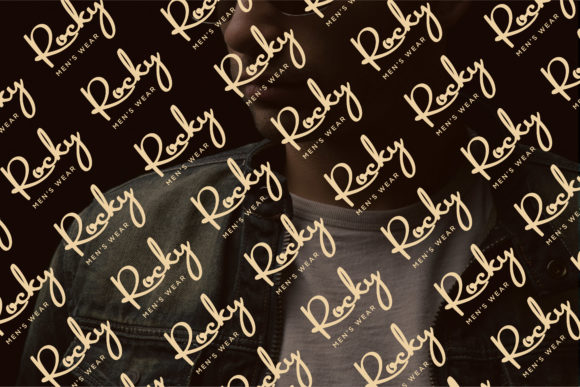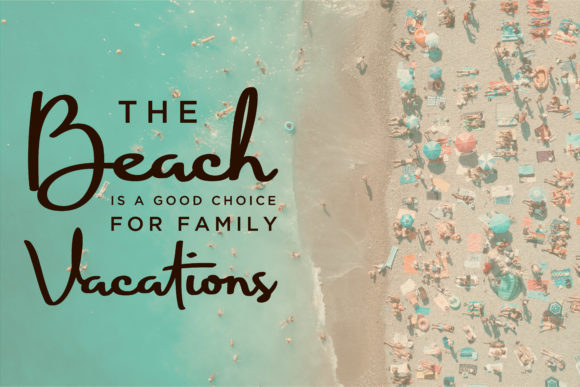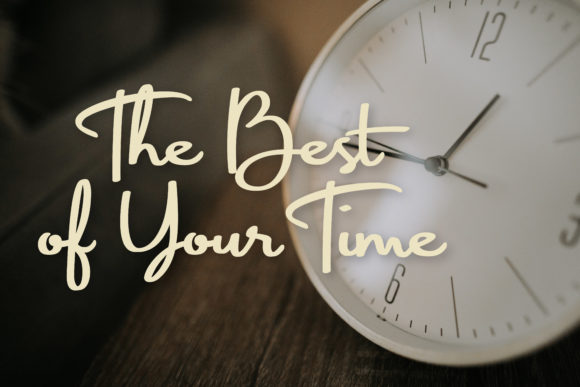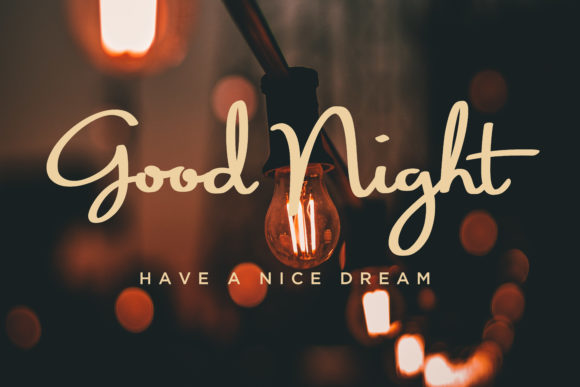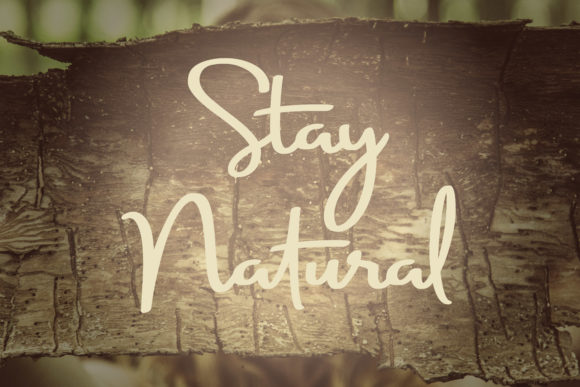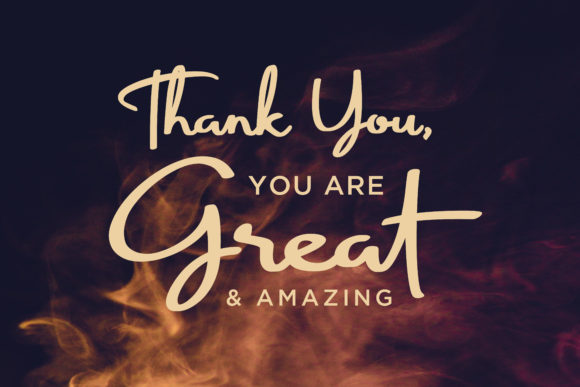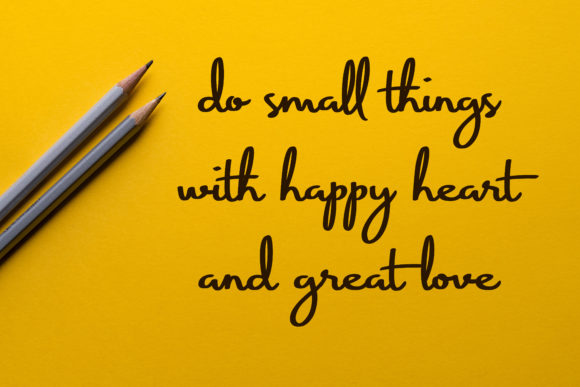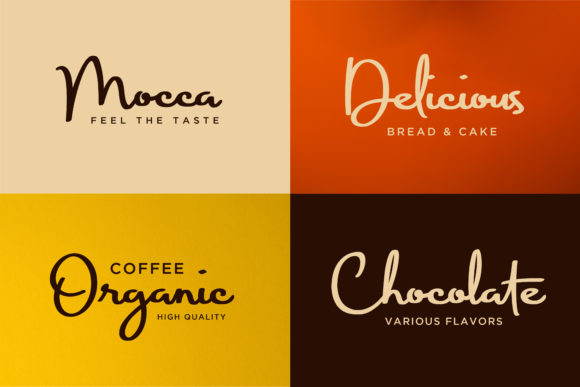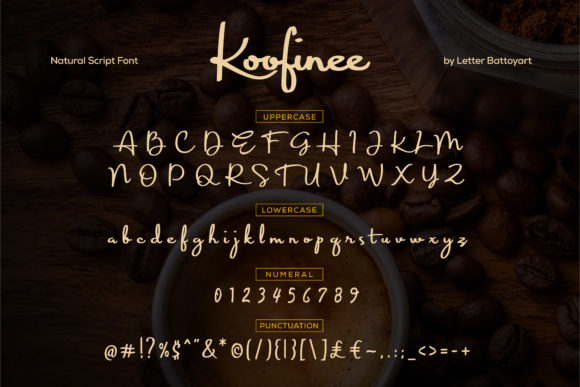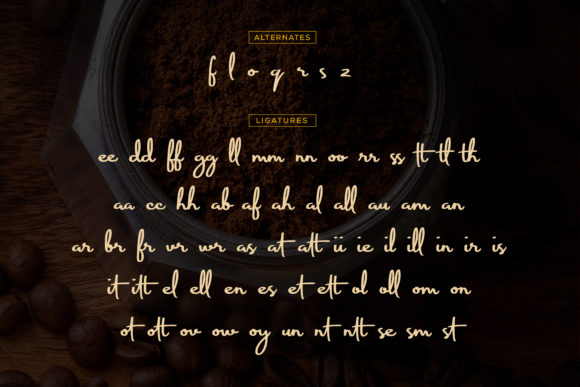
Koofinee Font
About Koofinee Font
Inspired by an undying love for coffee, Koofinee is a beautiful and authentic script. It will add a lovely twist to any design idea.